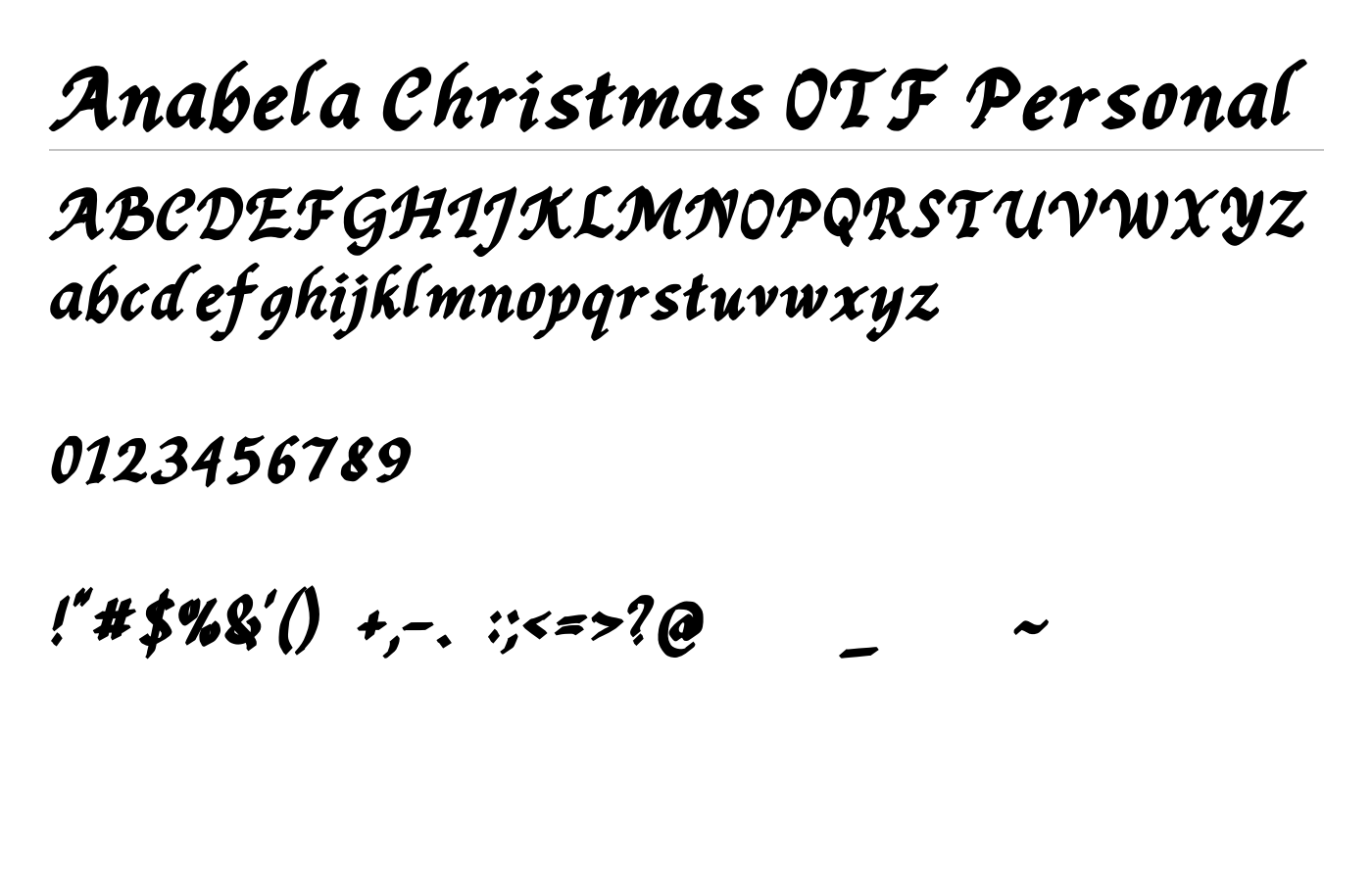
Anabela Christmas OTF Personal is a bold, calligraphic serif font with a strong, festive feel. Its angled strokes and uneven weight create a lively, hand-crafted appearance, ideal for holiday-themed designs and joyful branding. This font works well in invitations, greeting cards, and decorative headlines where a warm, spirited touch is desired.
Anabela Christmas OTF Personal Font